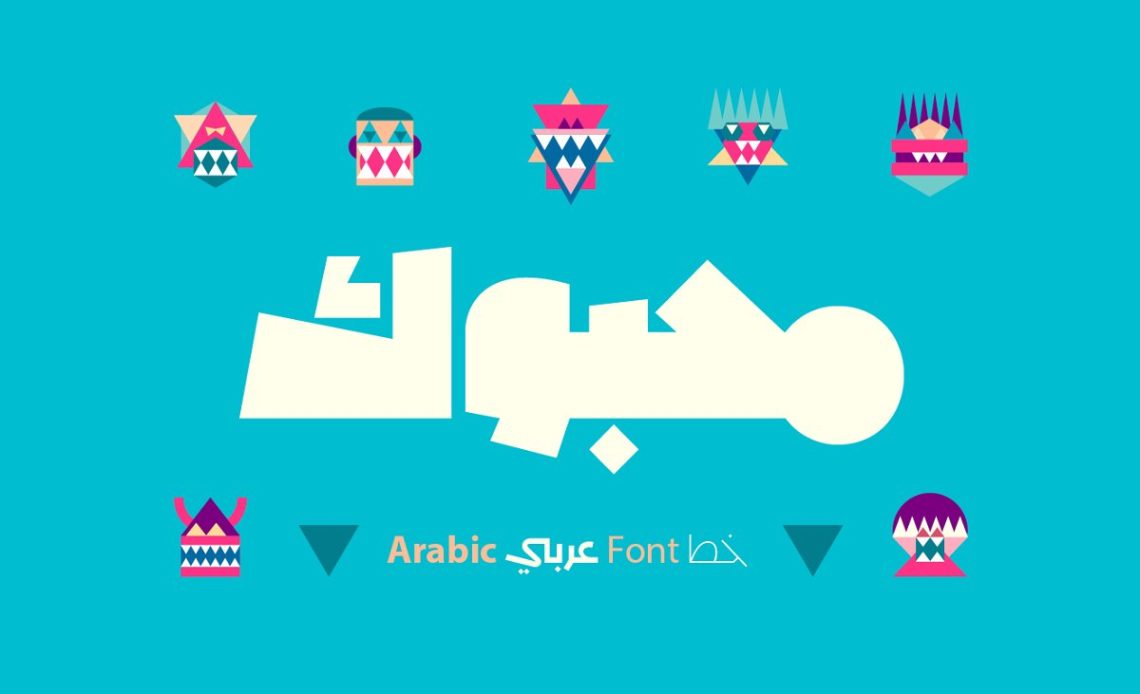
Introducing Mahbook - Arabic Font, the ultimate choice for those seeking the best fonts for display boards! Created by the talented Mostafa Abasiry, this script font is a true masterpiece that will captivate your audience and elevate your design projects to new heights.
With its contemporary letterform design, Mahbook stands out from the crowd, making a bold statement wherever it's used. This font family includes three weights - Thin, Normal, and Fat - allowing you to customize your typography and create visually stunning compositions.
Branding, advertising, publication, web design, or mobile applications, Mahbook is the perfect companion for any project. Its versatility knows no bounds, ensuring that your message will be conveyed in the most impactful way possible. Whether you're designing a logo, crafting a social media post, or creating a website, Mahbook will help you leave a lasting impression.
Experience the power of Mahbook and let your creativity soar. This font is not just a tool; it's a gateway to unlimited possibilities. Its exquisite design will evoke emotions, inspire action, and leave a lasting impact on anyone who encounters it.
Unlock your true potential with Mahbook - the Arabic font that takes your designs to the next level. From its captivating letterforms to its versatility and compatibility, Mahbook is a must-have for anyone looking to make a statement. Don't settle for ordinary, choose extraordinary with Mahbook.